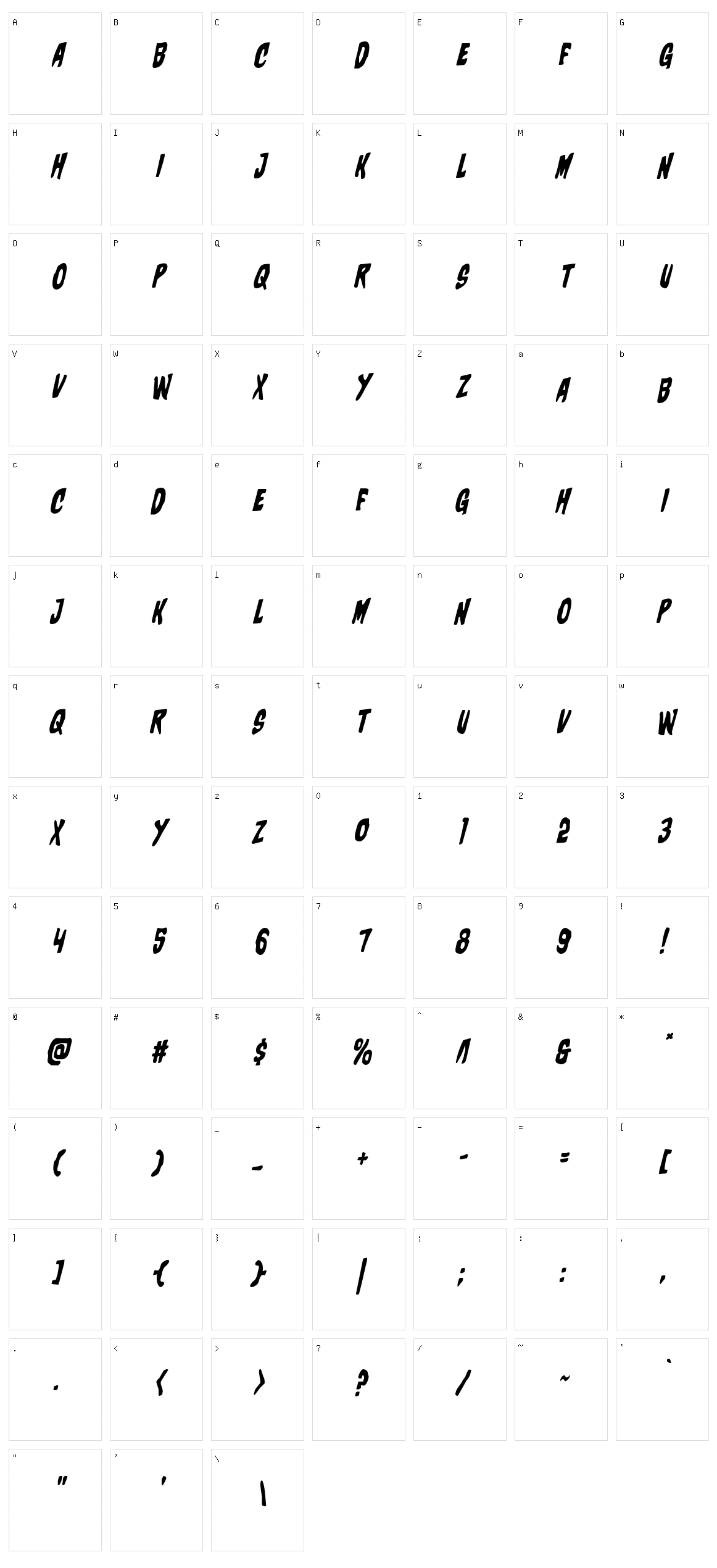
This font comes with the following 19 versions: Regular, Italic, Semi-Italic, Condensed, Condensed Italic, Expanded, Expanded Italic, 3D, 3D Italic, Balloon, Balloon Italic, Rotated, Rotated 2, Rotalic, Staggered, Starggered Italic, Staggered Rotalic, Leftalic and Super-Italic.